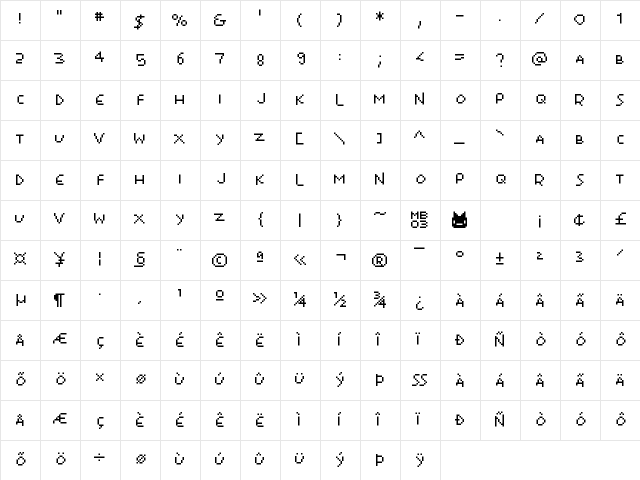
Hometown Regular
Design Context for Hometown Typeface
Hometown is a composed and adaptable typeface that performs quietly and consistently across a wide range of design contexts.